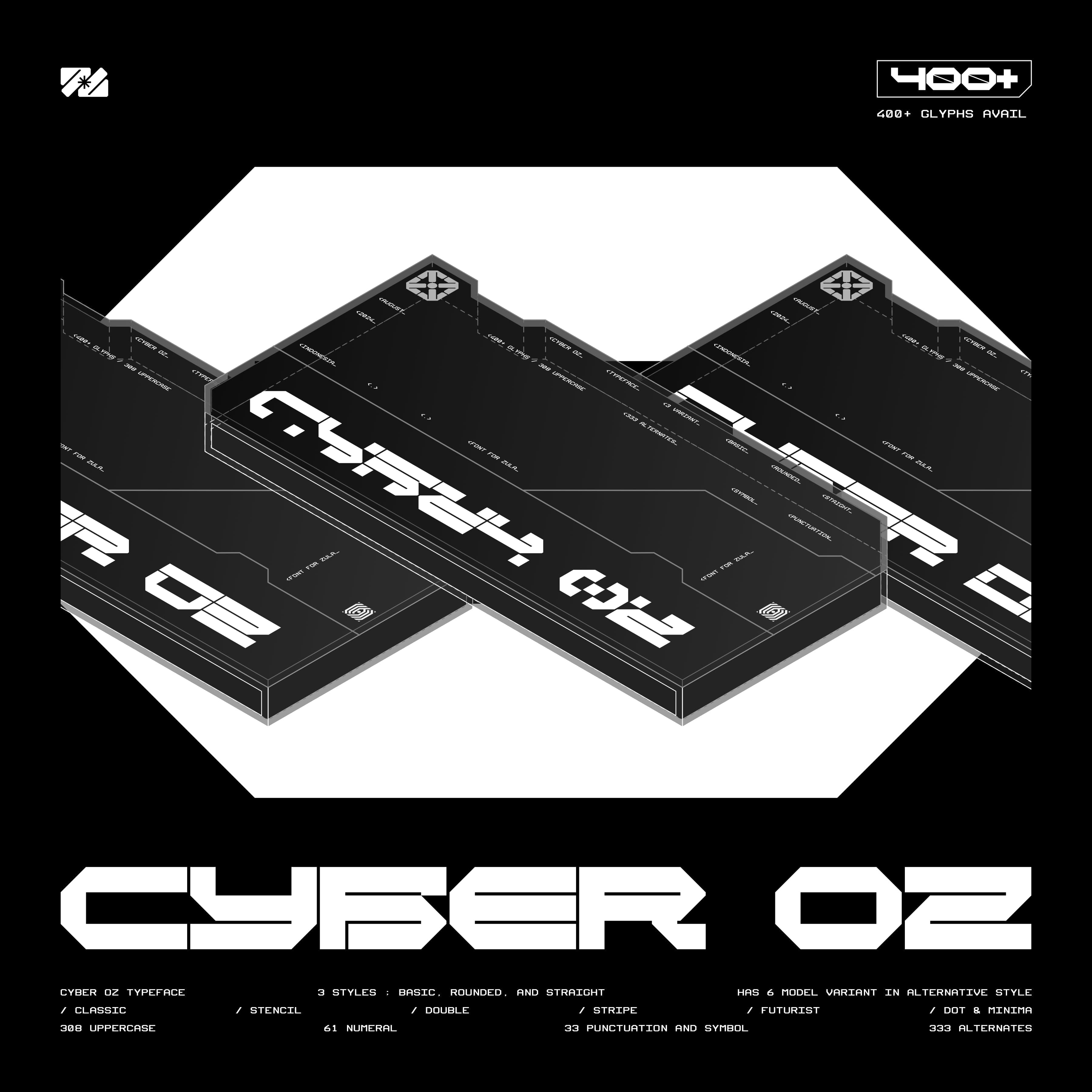
<p>Introducing CYBER OZ STRAIGHT typeface, a font with a futuristic appearance with many features and models that make it suitable for various purposes and projects. Cyber OZ has more than 400 glyphs, 282 alternative Uppercases, and 51 alternative Numerals. Among the many alternatives, Cyber OZ has many looks, such as Classic, Stencil, Double, Stripe, Futurist and Minimalist. These many features make you free to explore and experiment with this font in your projects.</p> <p>CYBER OZ STRAIGHT includes:</p> <ul> <li>6 Models in Alternative Forms;<ul> <li>Classic,</li> <li>Stencil, (Access with salt, ss01, and ss02)</li> <li>Double, (Access with ss03)</li> <li>Stripe, (Access with ss04)</li> <li>Futurist, (Access with ss05 and ss06)</li> <li>and Dot Minima. (Access with ss07 and ss08)</li> </ul> </li> <li>26 UPPERCASE</li> <li>283 UPP Alternates</li> <li>10 Numerals</li> <li>51 Numeral Alternates</li> <li>Punctuation and symbols</li> <li>OTF/TTF</li> <li>WOFF (Extended Only)</li> </ul>